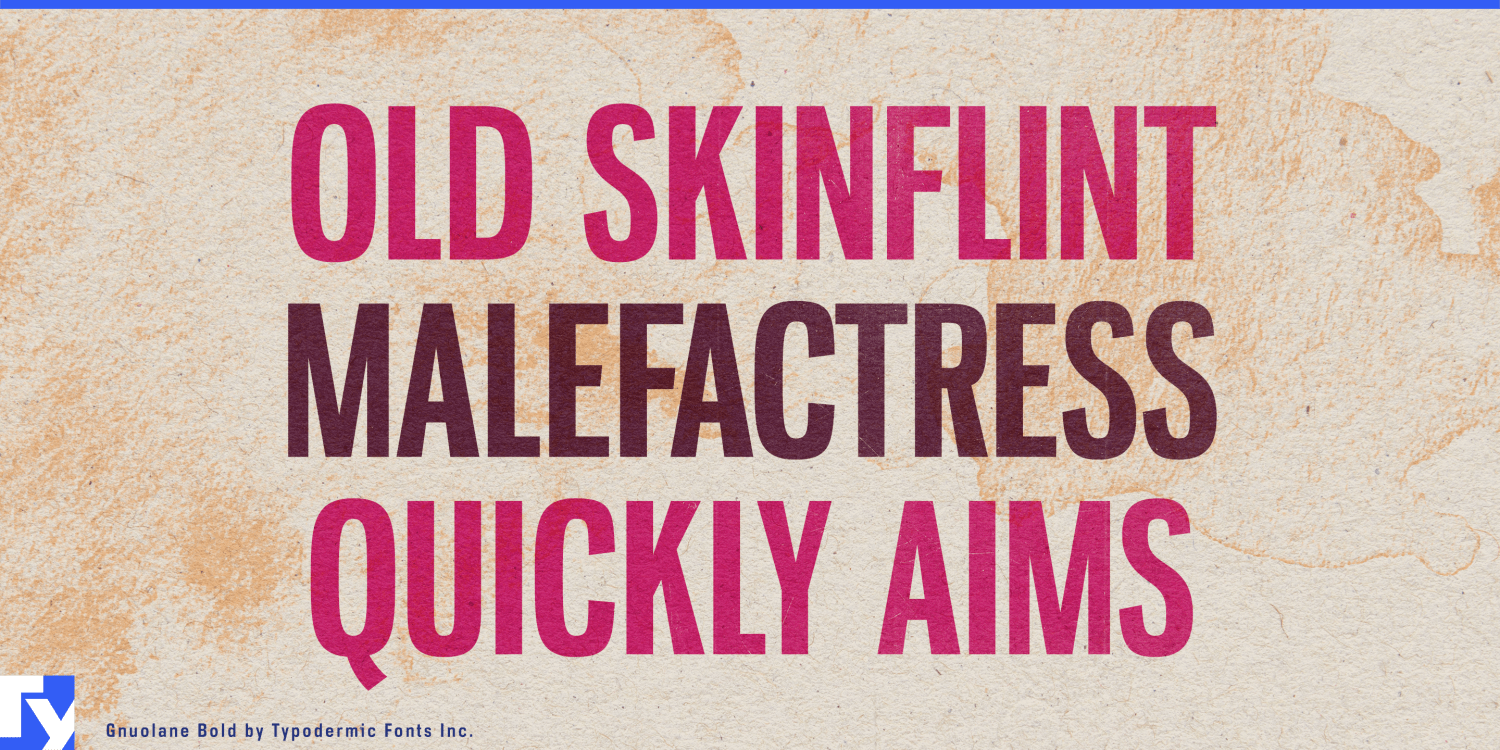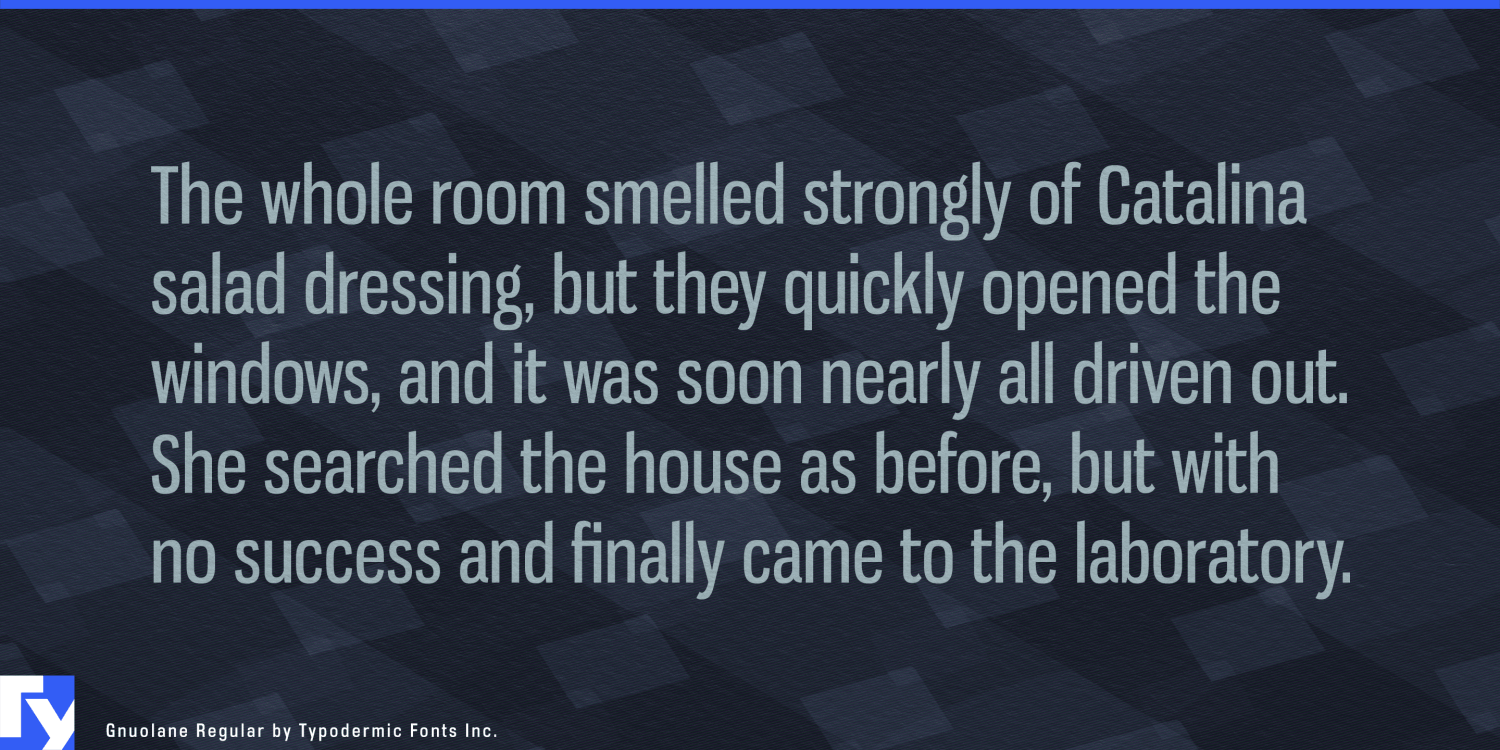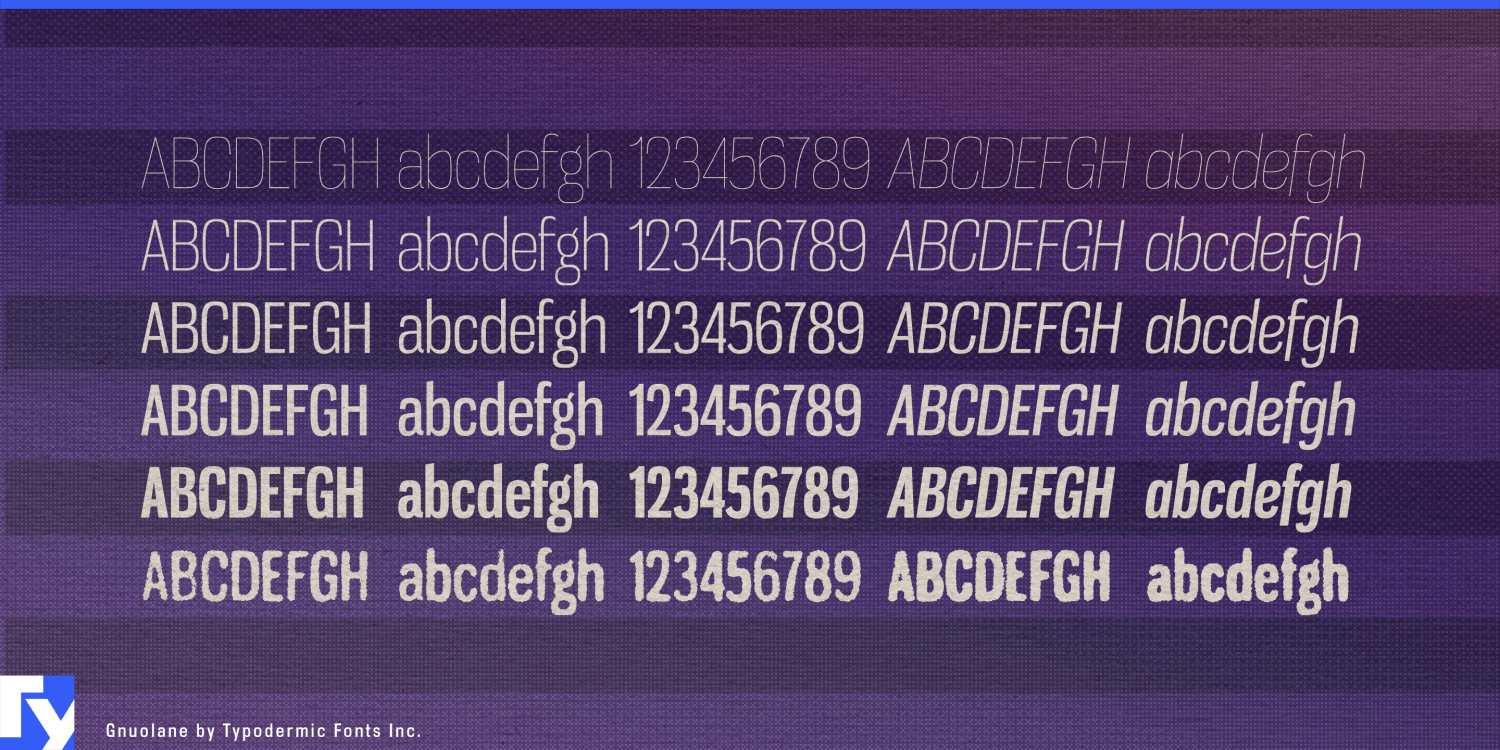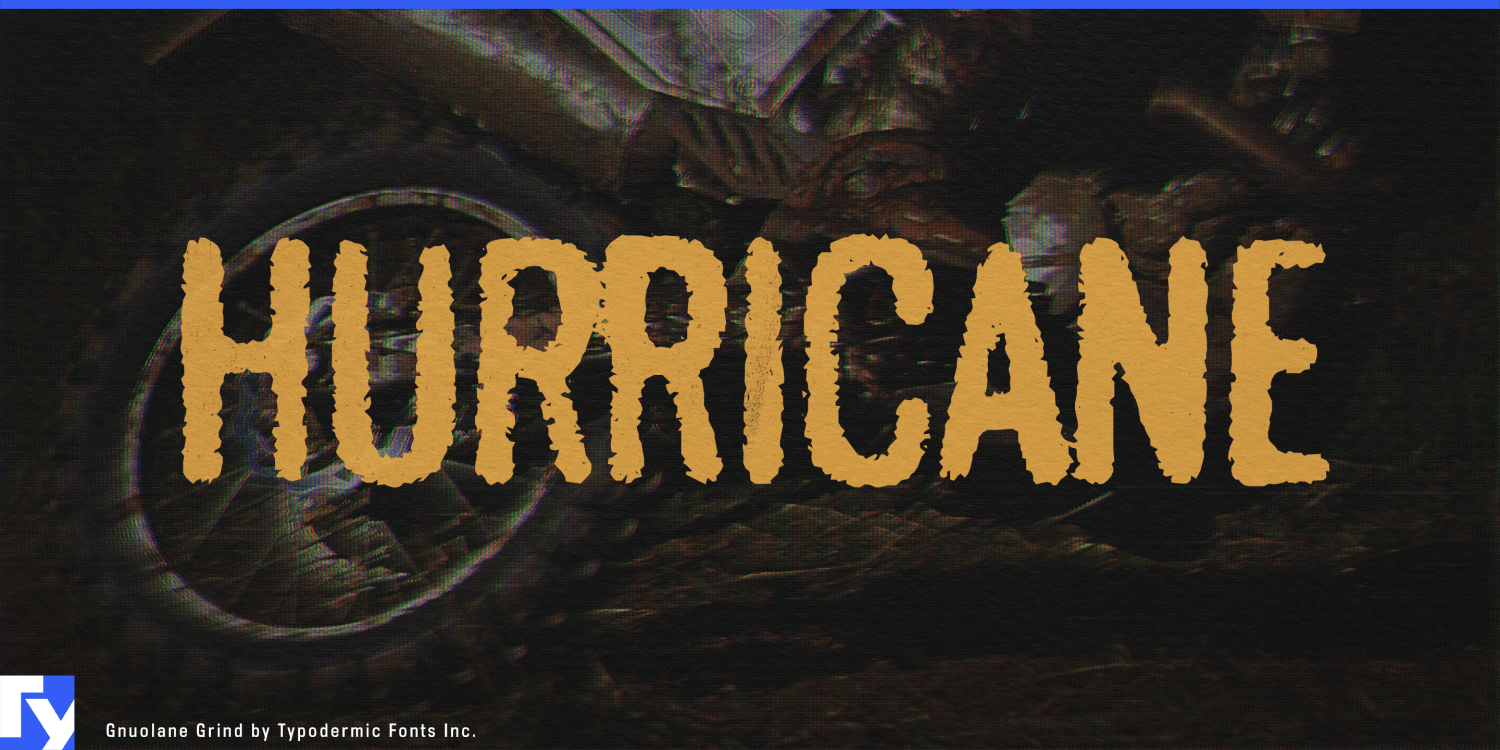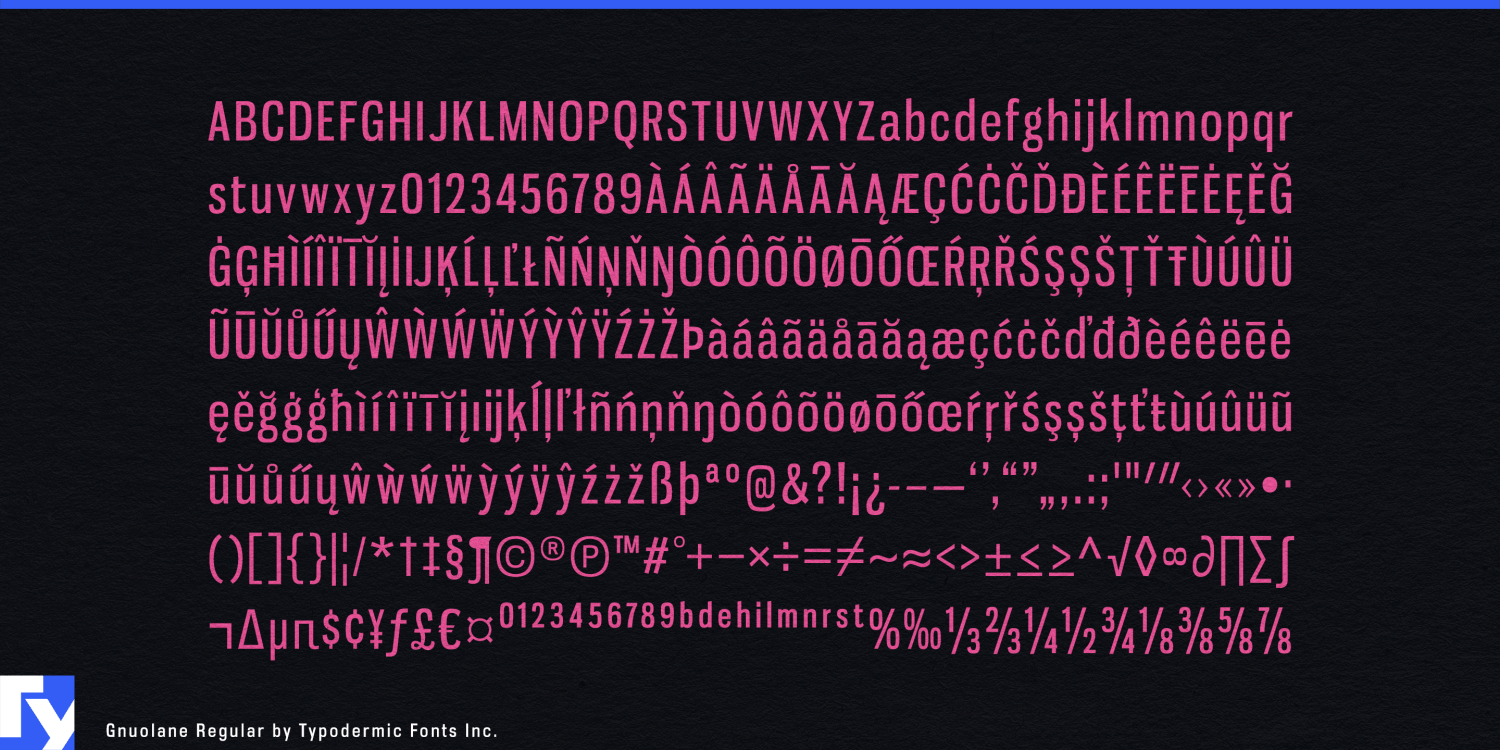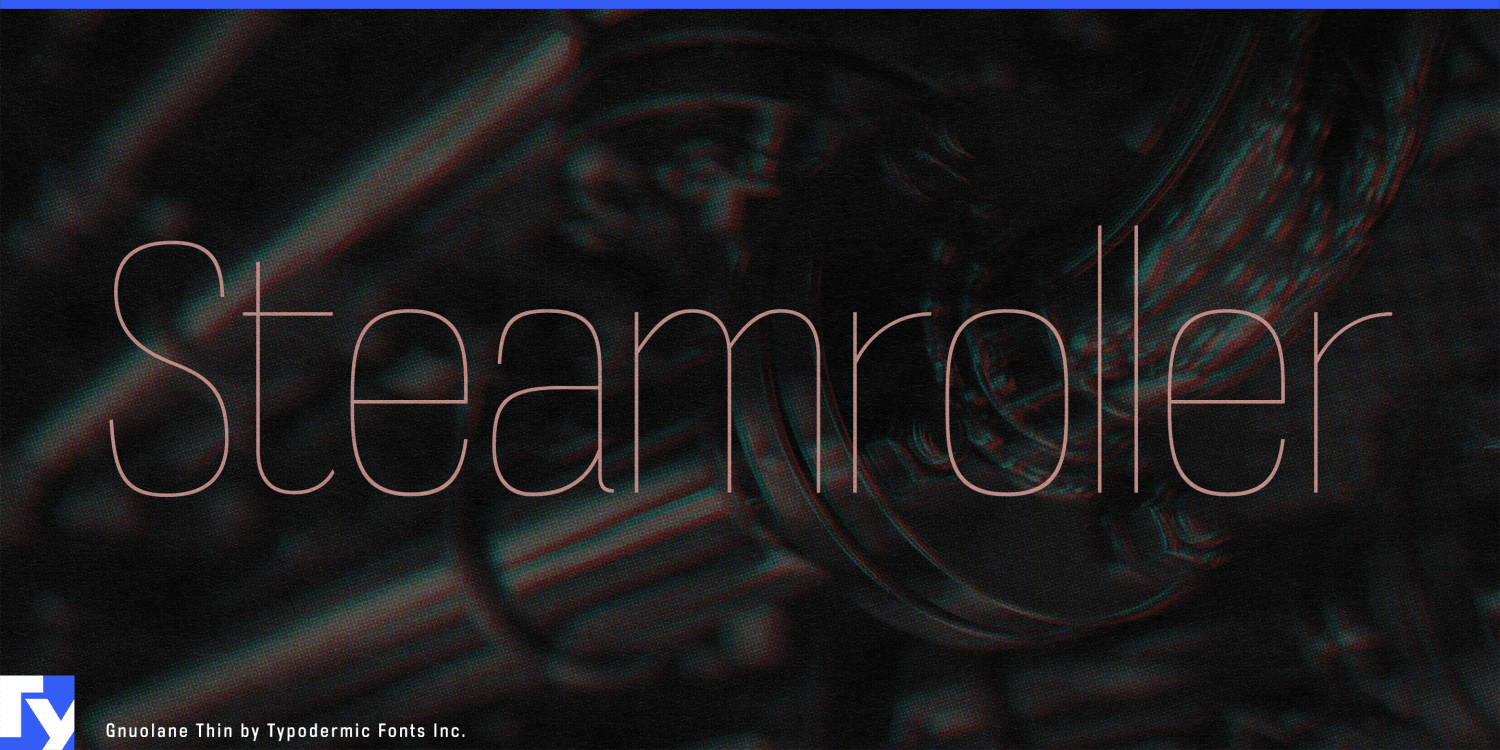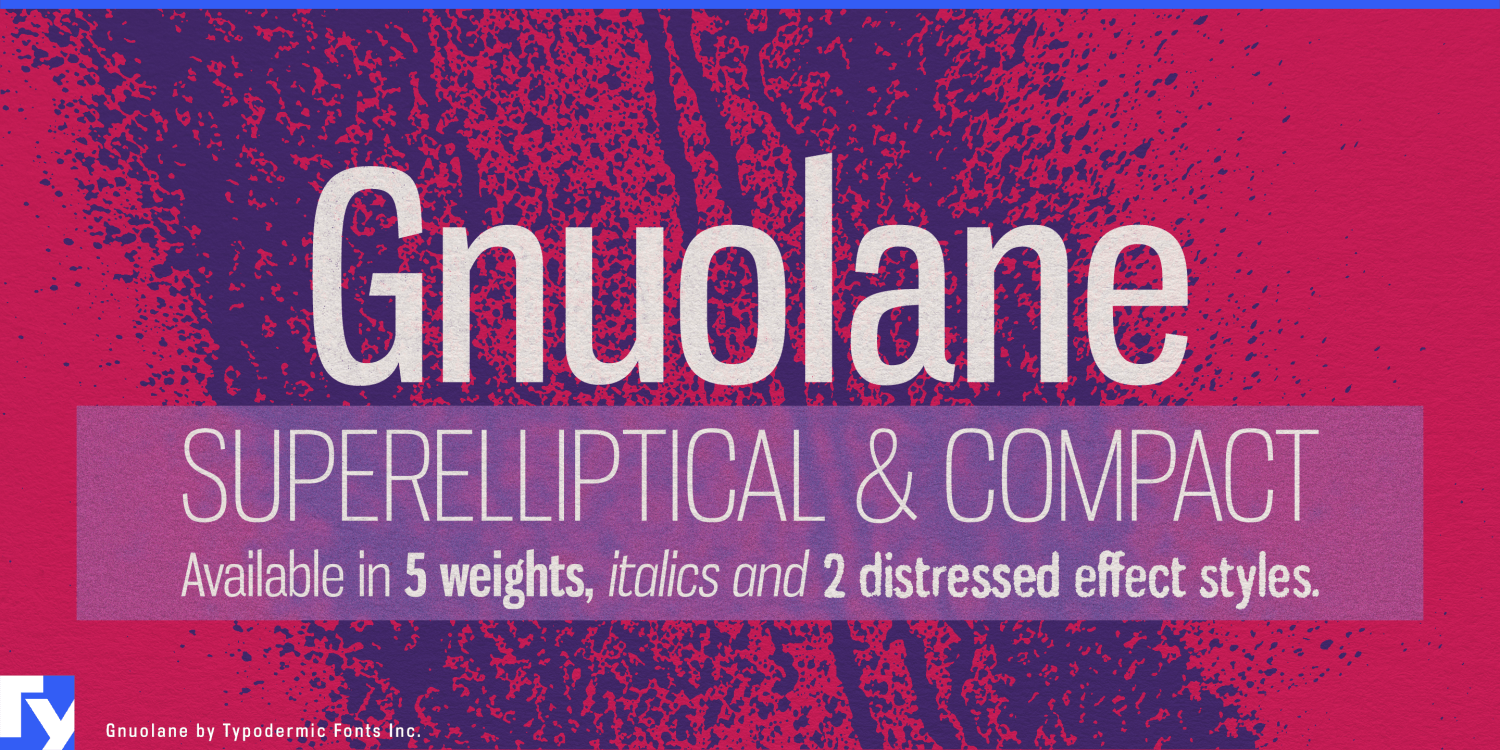
Gnuolane
About Gnuolane
Meet Gnuolane, the typographic equivalent of a well-tailored suit—compact, bold, and exuding quiet confidence. This display typeface marries the timeless appeal of early twentieth-century grotesques with the no-nonsense attitude of the 1960s, resulting…